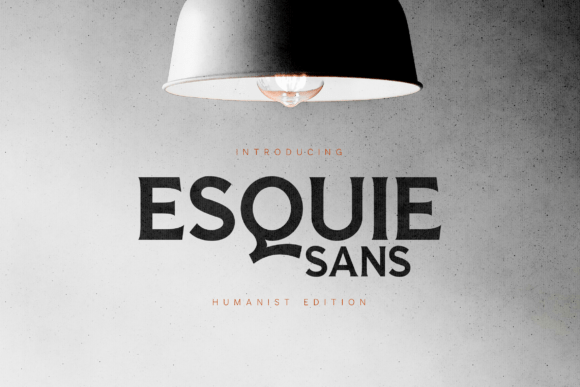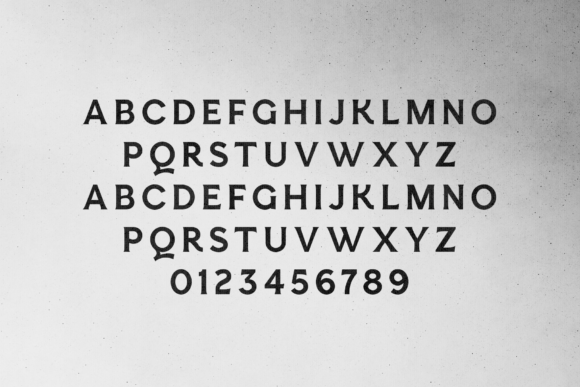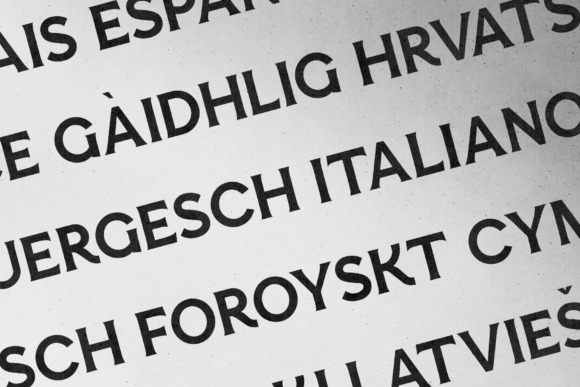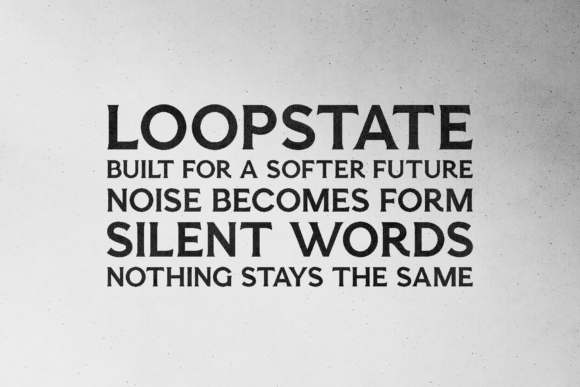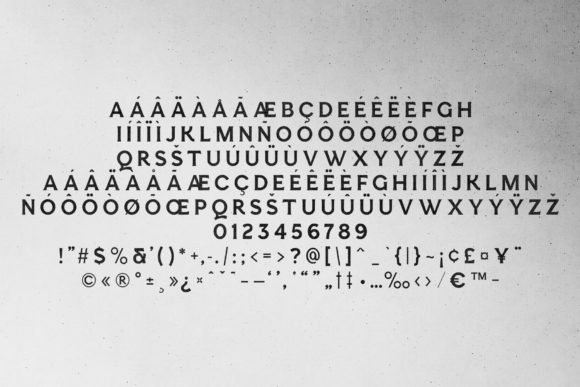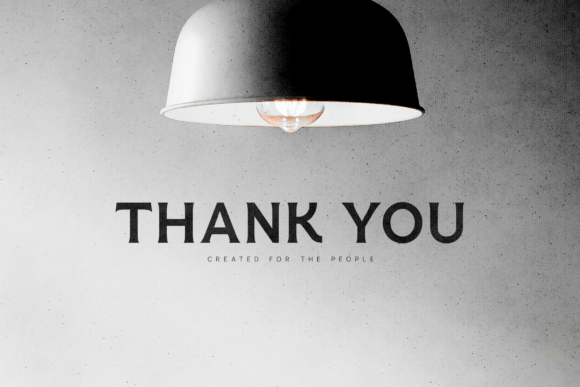
The Perfect Blend of Clarity and Warmth: Introducing Esquie Font
Have you ever found yourself staring at a blank page, struggling to bring your creative vision to life? The blank page stares back, taunting you with its emptiness. But what if you had the perfect tool to break the silence? For designers seeking a modern humanist sans serif font that embodies clarity, warmth, and contemporary expression, Esquie Font is the answer.
Designed to deliver a clean yet approachable aesthetic, Esquie Font is the perfect companion for your next design project. With its balanced proportions, subtle organic curves, and confident letterforms, it’s a versatile font that excels in both print and digital environments. Whether you’re crafting bold statements or refined layouts, Esquie Font’s humanist structure ensures excellent readability and a natural rhythm that’s sure to captivate your audience.
Esquie Font Key Features
- Font Family: Esquie is a sans-serif font family designed for digital use. It supports multiple languages and includes a range of weights and styles.
- Character Count: The font family includes over 1,000 glyphs, covering a wide range of characters and languages.
- Resolution: Optimized for high-resolution displays, Esquie font is suitable for use on screens with resolutions up to 4K and beyond.
- Weight Range: The font family includes weights ranging from Extra Light to Extra Bold, providing flexibility for various design applications.
- Unique Characteristics: Esquie font is known for its clean and modern design, with distinctive features such as rounded corners and subtle serif details.
Review of Esquie Font
Overall, I’m impressed with the Esquie Font. It’s a beautiful, elegant font that can be used for a variety of purposes. Here are some things that work well:
- ✨ Unique and distinctive design: Esquie Font has a unique, hand-drawn feel that sets it apart from other fonts.
- ✨ Versatile: This font can be used for a range of applications, from titles and headings to body text.
- ✨ Well-suited for creative projects: The font’s whimsical, artistic feel makes it perfect for creative projects like posters, brochures, and advertisements.
- ⚠️ Limited legibility at small sizes: While the font looks great at larger sizes, it can become difficult to read at smaller sizes.
- ⚠️ May not be suitable for formal documents: The font’s playful, creative feel may not be suitable for formal documents like business reports or academic papers.
Overall, I would recommend Esquie Font to designers who are looking for a unique, versatile font that can add a touch of creativity to their projects. However, it’s essential to use it judiciously and consider the context in which it will be used.
Getting the Most Out of Esquie Font
To get the most out of Esquie Font, use it in creative and unexpected ways:
- Use it for headings and titles to add a touch of elegance.
- Pair it with bold fonts for a striking contrast.
Esquie Font is perfect for:
- Editorial and publishing designs.
Q: Can I customize the Esquie Font for a specific project or brand?
Q: What is the recommended font size range for optimal readability with Esquie Font?
The recommended font size range for optimal readability with Esquie Font is between 10pt and 24pt. However, the font is highly legible at a wide range of sizes, and can be used effectively in applications where smaller or larger font sizes are required.